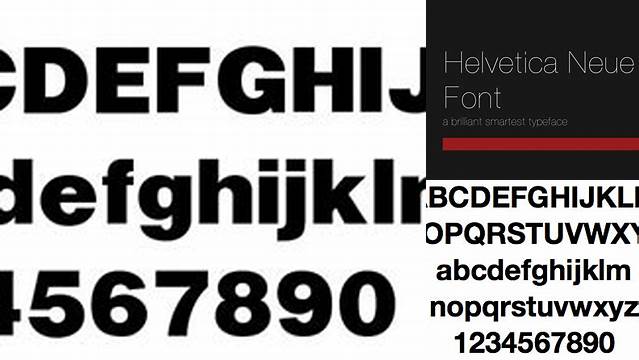
Free Helvetica Bold Font Generator: Get The Look
Hey guys! Ever needed that perfect Helvetica Bold font but didn't want to shell out the big bucks? You're in the right place! Let's dive into the world of free Helvetica Bold font generators, what makes this font so iconic, and how you can use it to level up your designs. We'll cover everything from the history of Helvetica to how to snag it for your projects without spending a dime. Get ready to unleash your inner designer!
What Makes Helvetica Bold So Special?
So, what's the deal with Helvetica Bold? Why is it such a big deal in the design world? Well, let's break it down. Helvetica is more than just a font; it's a statement. It's clean, it's modern, and it's incredibly versatile. Think of it as the little black dress of typography—it goes with everything! One of the key reasons for Helvetica's popularity is its neutrality. It doesn't scream for attention; instead, it quietly communicates the message with utmost clarity. This makes it ideal for a wide range of applications, from corporate branding to editorial design.
The bold version takes all the fantastic qualities of the regular Helvetica and amplifies them. It adds a punch of emphasis without losing the font's inherent legibility and simplicity. When you need your text to stand out—whether it's in a headline, a logo, or a key piece of information—Helvetica Bold is your go-to. Its strong, confident strokes command attention, ensuring your message is seen and understood. It's no surprise that big brands and design agencies around the globe have embraced Helvetica Bold for their most important projects. It conveys a sense of authority and professionalism, making it perfect for creating a lasting impression. But its appeal goes beyond just corporate use. Designers love it for its adaptability, using it in everything from websites to print materials. It pairs well with other fonts, making it a staple in any designer's toolkit. The clean lines and balanced form of Helvetica Bold ensure that it remains readable even at small sizes, which is crucial for mobile-friendly designs. In essence, Helvetica Bold is a timeless classic. Its simplicity is its strength, and its versatility is its superpower. It's a font that has stood the test of time, remaining relevant and stylish in an ever-changing design landscape. For anyone looking to make a bold statement with their typography, Helvetica Bold is the ultimate choice.
Finding Free Helvetica Bold Font Generators
Now, let's get to the juicy part: finding those free Helvetica Bold font generators. We all love free stuff, right? The good news is that while the actual Helvetica Bold font is a commercial typeface, there are some clever ways to get the look and feel without opening your wallet. There are many online tools that let you create text in a style that mimics Helvetica Bold. These font generators are super handy when you need a specific look for graphics, social media posts, or even mock-ups. The key is to know where to look and how to use these resources effectively.
One option is to explore font identifier websites. These sites allow you to upload an image of text in Helvetica Bold, and they'll help you find similar-looking fonts that are available for free. It's like having a font detective at your service! Many sites have extensive databases of fonts, and they're surprisingly accurate in identifying close matches. Another avenue to explore is open-source font libraries. Sites like Google Fonts offer a wide range of fonts, some of which bear a striking resemblance to Helvetica Bold. These fonts are free to use, even for commercial projects, making them a fantastic resource for designers on a budget. When using these font generators, keep an eye out for customization options. Some tools allow you to adjust the weight, spacing, and other parameters to fine-tune the look of your text. This can be incredibly useful for achieving the exact effect you're after. Also, be mindful of licensing. While many free fonts are available for commercial use, it's always a good idea to double-check the terms to avoid any surprises down the road. Remember, the goal here is to find a solution that gives you the look of Helvetica Bold without infringing on any copyrights. With a little bit of digging and some creative use of online tools, you can absolutely achieve that classic, clean aesthetic without spending a fortune. So go ahead, experiment with different font generators and discover the perfect free alternative for your next project!
Top Free Alternatives to Helvetica Bold
Okay, so we're on the hunt for that Helvetica Bold vibe, but we want to keep it free, right? No problem! There are some fantastic free alternatives out there that can give you a similar look and feel without the hefty price tag. Let's dive into some of the top contenders. First up, we have 'Arial Bold'. Now, Arial often gets a bad rap for being a Helvetica imposter, but honestly, it's a solid choice when you need a clean, legible sans-serif font. It's widely available, comes standard with most operating systems, and its bold version packs a punch. It might not be Helvetica, but it's a close cousin that gets the job done. Then there's 'Inter', a relatively new typeface that's been making waves in the design community. Inter is designed with screen readability in mind, which makes it perfect for web projects. Its clean lines and generous x-height give it a modern, approachable feel, much like Helvetica. Plus, it's open-source, so you can use it for anything you want, no strings attached.
Another great option is 'Roboto'. This font is a Google creation, and it's used extensively across the Android operating system. Roboto has a dual nature; it has a mechanical skeleton and the forms are largely geometric. At the same time, the font features friendly and open curves. Roboto Bold is particularly effective for headlines and branding, offering a strong, confident presence. Don't forget about 'Open Sans'. This is another Google font that's super versatile and widely used. Open Sans was designed with readability in mind, making it a fantastic choice for body text as well as headlines. Its clean, neutral appearance makes it a great alternative to Helvetica, especially when you need a font that's easy on the eyes. When choosing a free alternative, consider the specific needs of your project. Think about where the font will be used (print or screen), the overall tone you want to convey, and how it will pair with other fonts. Experiment with different options and see what works best. The beauty of these free alternatives is that they give you the flexibility to achieve a similar aesthetic to Helvetica Bold without breaking the bank. So go ahead, explore these options and find the perfect fit for your design!
How to Use Your Generated Helvetica Bold Font
Alright, you've got your hands on a fantastic Helvetica Bold font (or a free alternative, which is equally awesome!). Now, the question is: how do you actually use it? Don't worry, we've got you covered. Using your generated font is all about knowing where to apply it for maximum impact. The first thing to consider is the context. Where will this font be seen? If it's for a website, you'll want to make sure it's web-friendly. This means using a format that browsers can easily render, like WOFF or WOFF2. Many font generators and download sites offer fonts in these formats, so you're usually good to go. If you're using the font for print, you'll want to ensure it's a high-quality vector format, like OTF or TTF. These formats scale well without losing sharpness, which is crucial for printed materials.
Next, think about where Helvetica Bold will have the most impact. This font shines in headlines, subheadings, and other prominent text elements. Its strong, confident presence can draw the reader's eye and create a clear hierarchy on the page. However, be careful not to overuse it. Too much bold text can become overwhelming and lose its impact. Use it strategically to highlight key information and create visual interest. Another tip is to consider the font pairing. Helvetica Bold is incredibly versatile, but it looks its best when paired with complementary fonts. Try pairing it with a lighter weight of the same font family or with a classic serif font for a balanced, sophisticated look. When using your generated font in design software like Adobe Photoshop or Illustrator, the process is usually straightforward. Simply install the font on your system, and it should appear in your font menu. From there, you can select it and start designing. If you're using a web-based design tool, you may need to upload the font file to the platform. Each tool has its own process, so be sure to check the documentation for specific instructions. Remember, typography is a crucial element of design. Choosing the right font and using it effectively can make or break your project. With your new Helvetica Bold font (or alternative), you have a powerful tool at your disposal. Use it wisely, and watch your designs come to life!
Tips for Effective Typography with Helvetica Bold
So, you've got your Helvetica Bold font ready to roll. Awesome! But simply having the font isn't enough; you need to know how to wield it like a typography ninja. Let's talk about some tips for effective typography with Helvetica Bold to ensure your designs are not just legible, but truly captivating. First off, think about hierarchy. Helvetica Bold is a fantastic font for creating visual hierarchy in your designs. Use it for headlines and subheadings to guide the reader's eye and emphasize important information. The bold weight naturally commands attention, making it perfect for drawing people into your content. However, remember that less is more. Overusing bold text can diminish its impact and make your design feel cluttered. Use it strategically to highlight key points and create a clear structure.
Alright, guys, we've journeyed deep into the world of Helvetica Bold font generators, exploring everything from what makes this font so iconic to how to snag it for your projects without spending a dime. We've uncovered some fantastic free alternatives and shared tips on using Helvetica Bold effectively in your designs. The key takeaway here is that great typography is within everyone's reach, regardless of budget. Whether you're a seasoned designer or just starting out, understanding the power of a well-chosen font can elevate your work to the next level. Helvetica Bold, with its clean lines, versatility, and timeless appeal, is a valuable tool in any designer's arsenal. But remember, it's not just about having the right font; it's about knowing how to use it. Pay attention to hierarchy, kerning, tracking, and font pairing to create designs that are not only visually appealing but also highly effective in communicating your message. So go forth, experiment, and unleash your inner typography ninja! With the knowledge and resources you've gained here, you're well-equipped to create stunning designs that make a lasting impression. Happy designing!